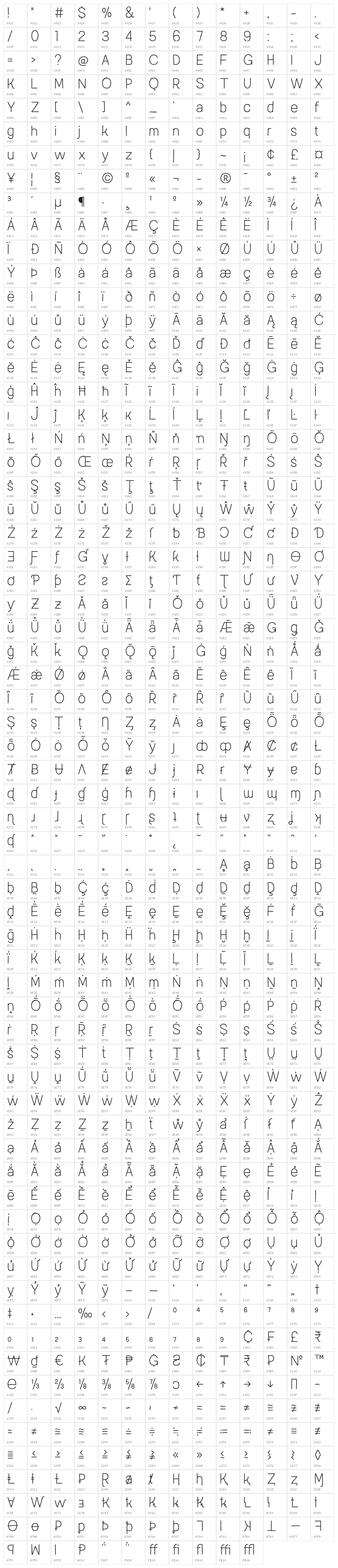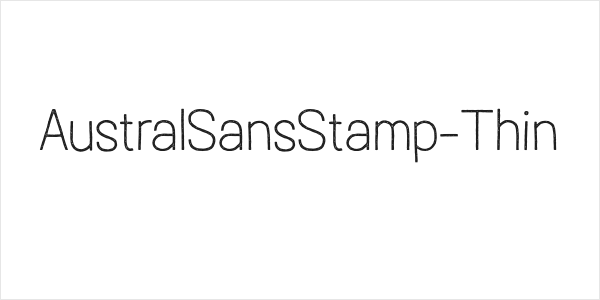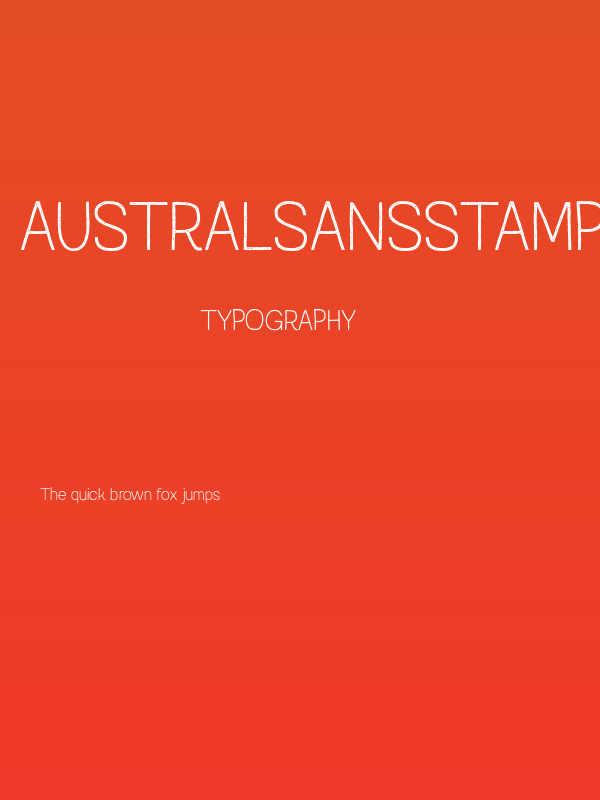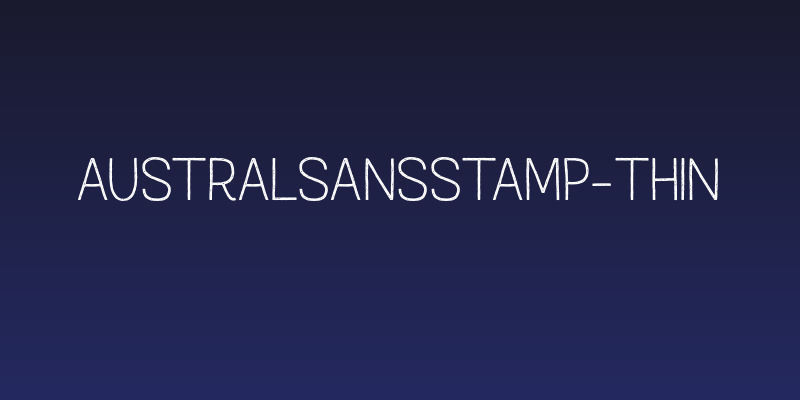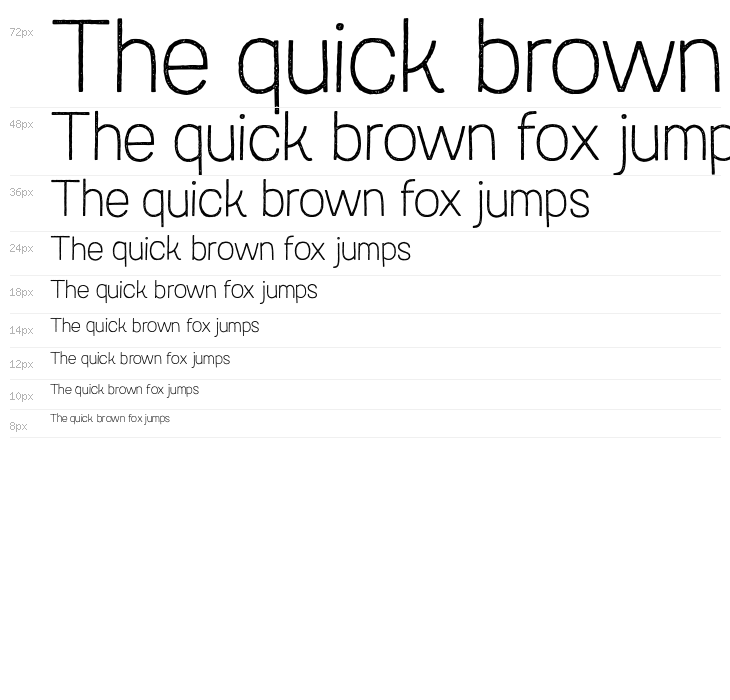
AustralSansStamp-Thin Font
AustralSansStamp-Thin Description
This font features a thin, sans-serif style with a distinct stamped texture that gives it a unique, handcrafted appearance. The characters are clean and modern, with a slightly rough edge that adds character and depth. The uppercase and lowercase letters maintain a consistent height and width, providing a uniform look. Numbers and special characters are designed with the same attention to detail, ensuring readability and style. The overall design is minimalist yet impactful, making it suitable for a variety of creative projects.
Proposed ProjectsIdeal for branding, packaging, posters, and any project needing a modern yet rustic touch.